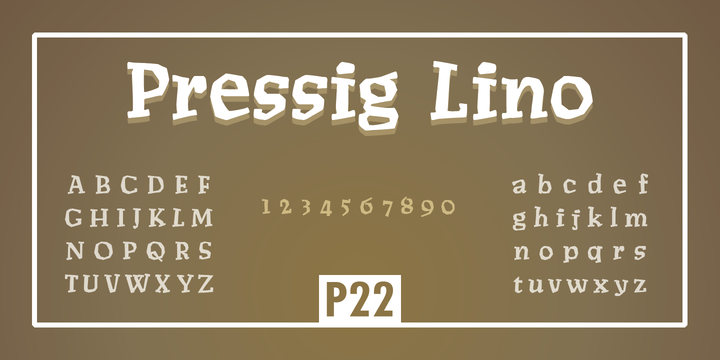
The type designs of Vojtech Preissig show a great affinity for handcraftsmanship and a distinct attempt to avoid appearing too clean and mechanical. Legend tells how Preissig created hand-cut fonts using a knife in linoleum blocks. This font was based on one such design from 1912 with elements from other “hand-cut” Preissig alphabets incorporated as well. These designs predate the more refined Preissig Roman font of the 1920s, which achieved a modest notoriety for its angular approach to the Roman alphabet.
P22 Preissig Lino